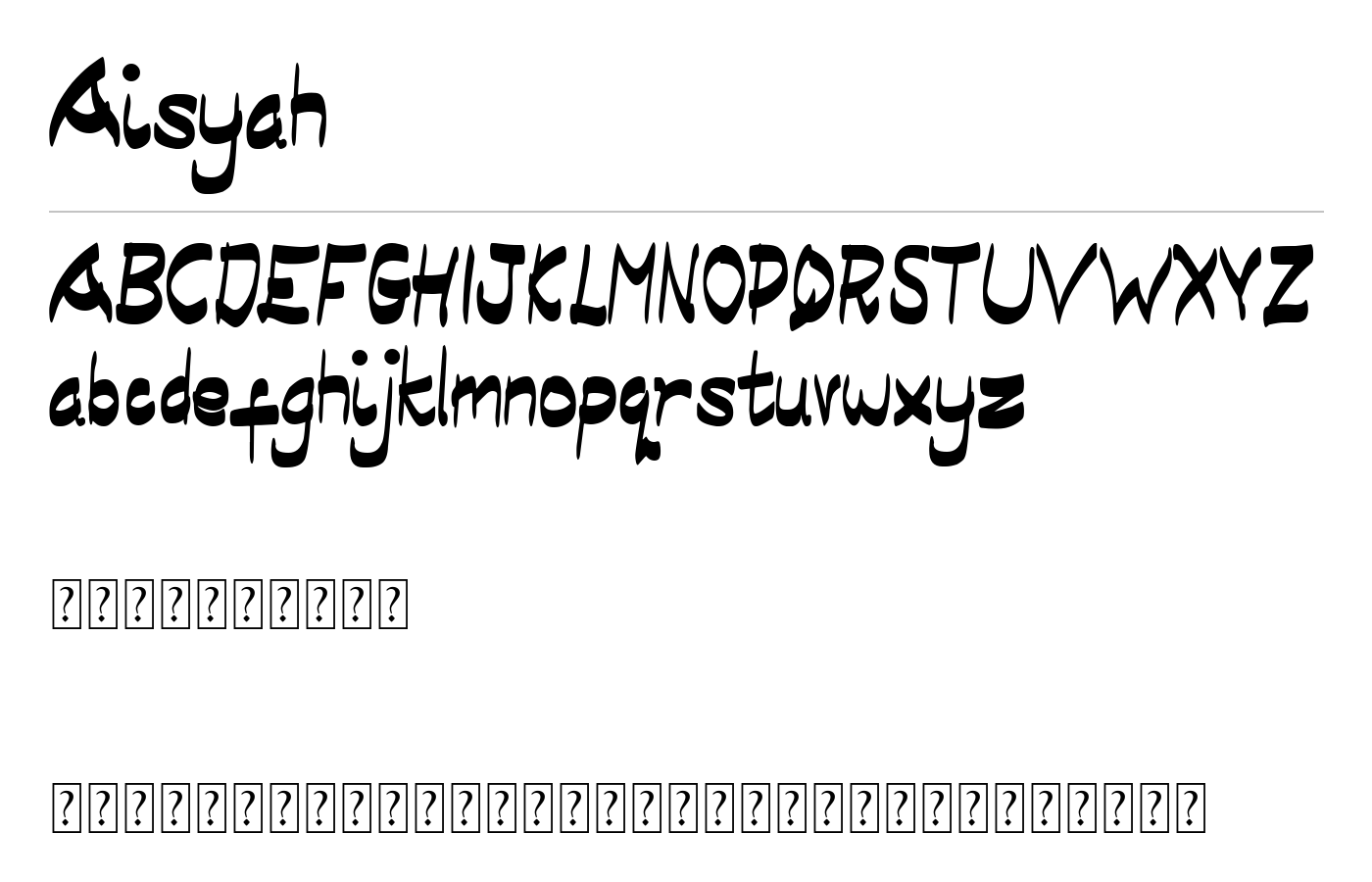
Aisyah is a playful and casual handwritten font with an organic, slightly irregular style that gives it a friendly and approachable vibe. Its moderate weight and uneven strokes create a lively rhythm, making it perfect for creative projects, children’s books, or informal branding that seeks a warm, personal touch. This font works best in headlines, logos, and packaging where a fun and unique personality is desired.
Aisyah Font